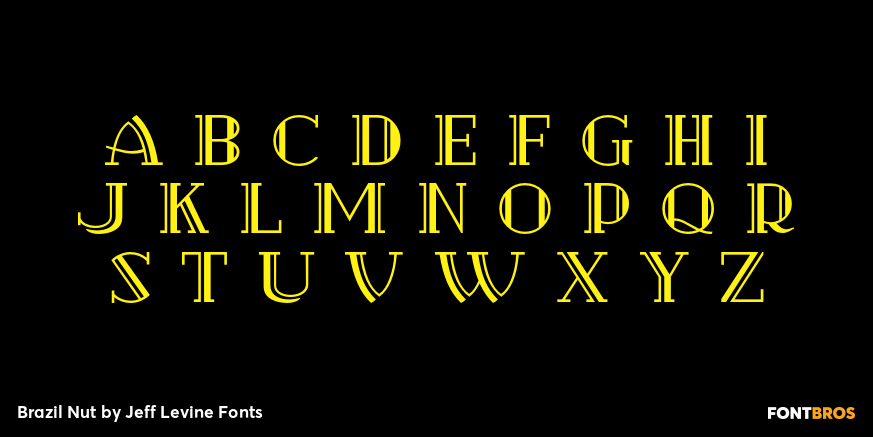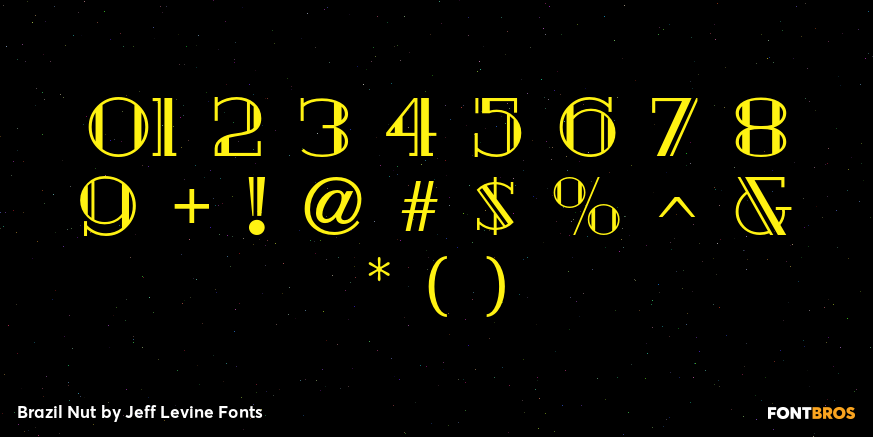
Brazil Nut
Brazil Nut JNL comes from hand lettering on some 1920s sheet music from Florenz Ziegfeld's musical comedy 'Rio Rita”.
Brazil Nut by Jeff Levine Fonts